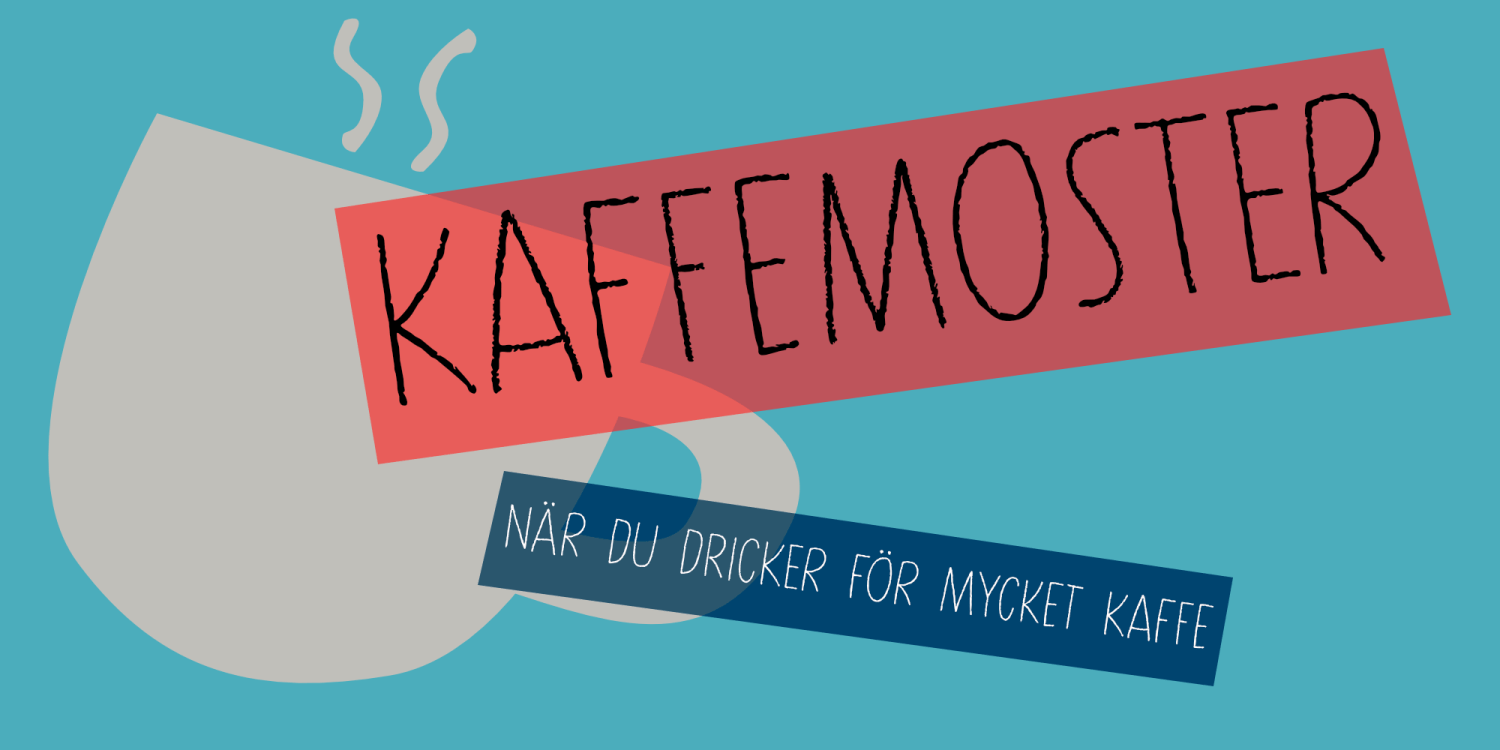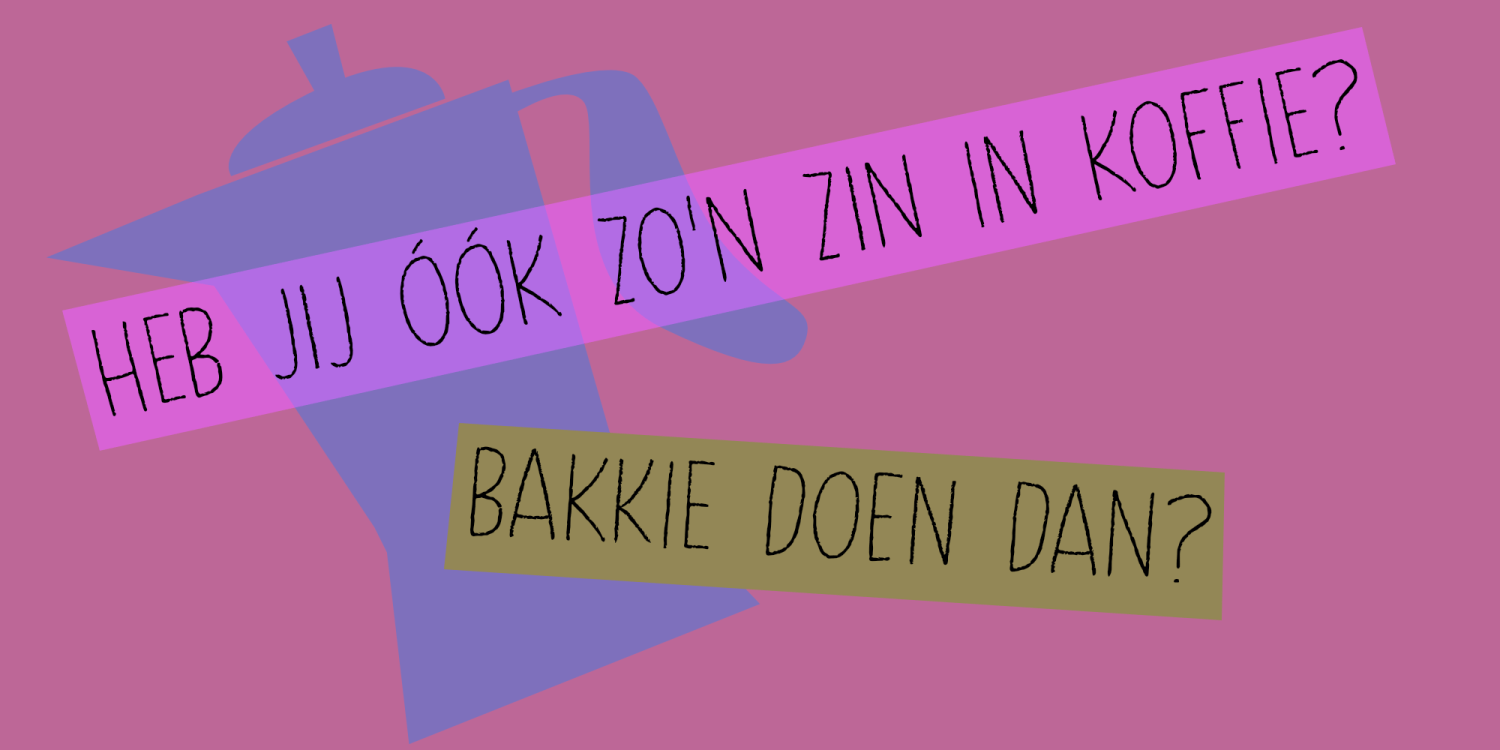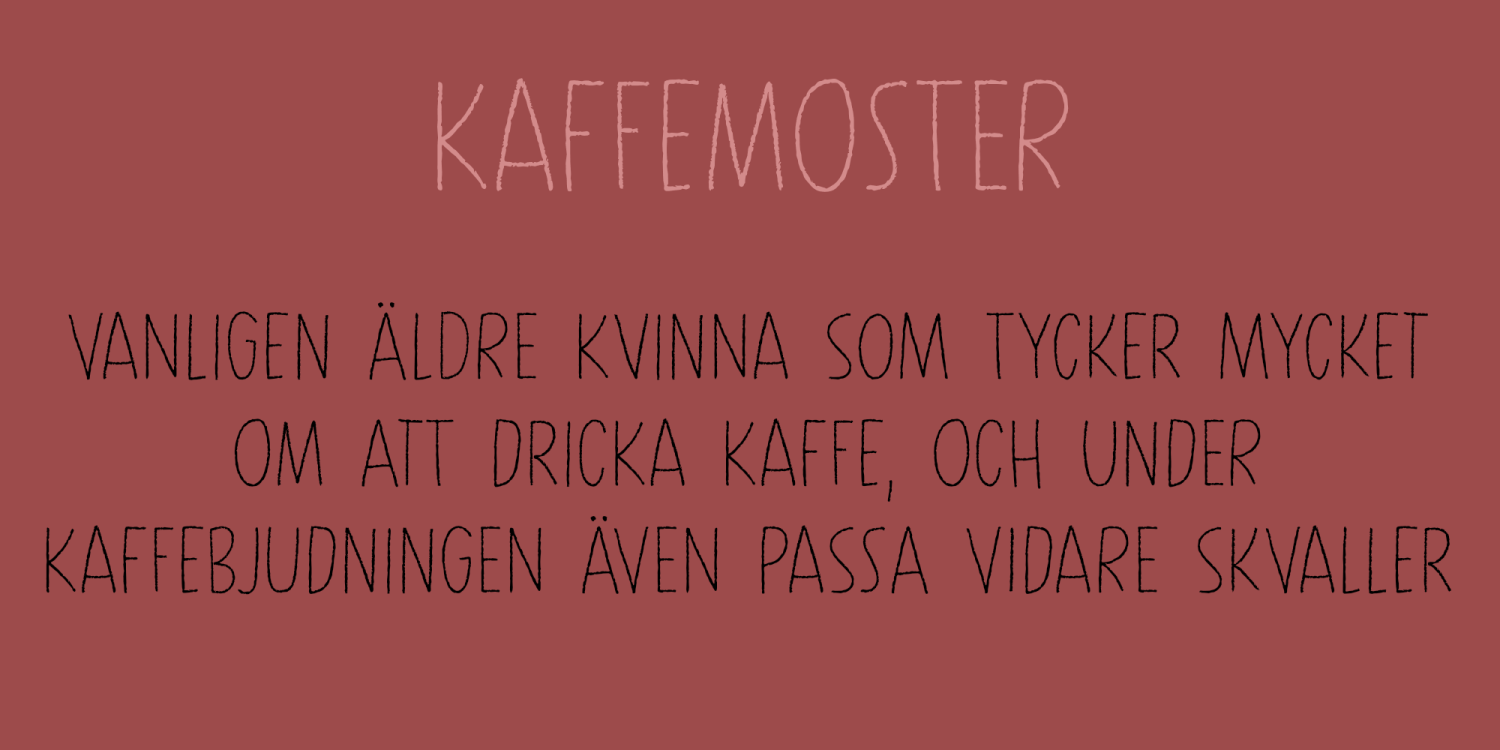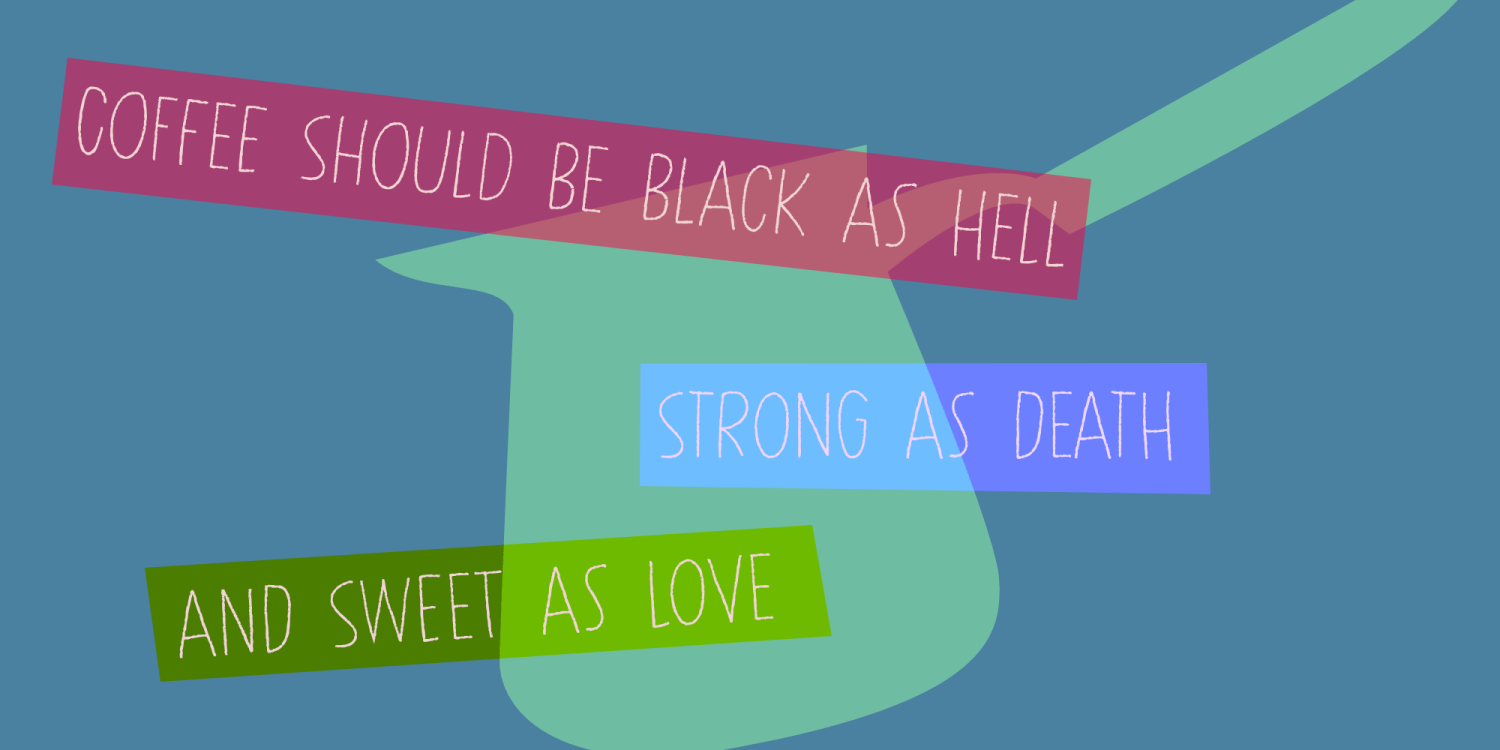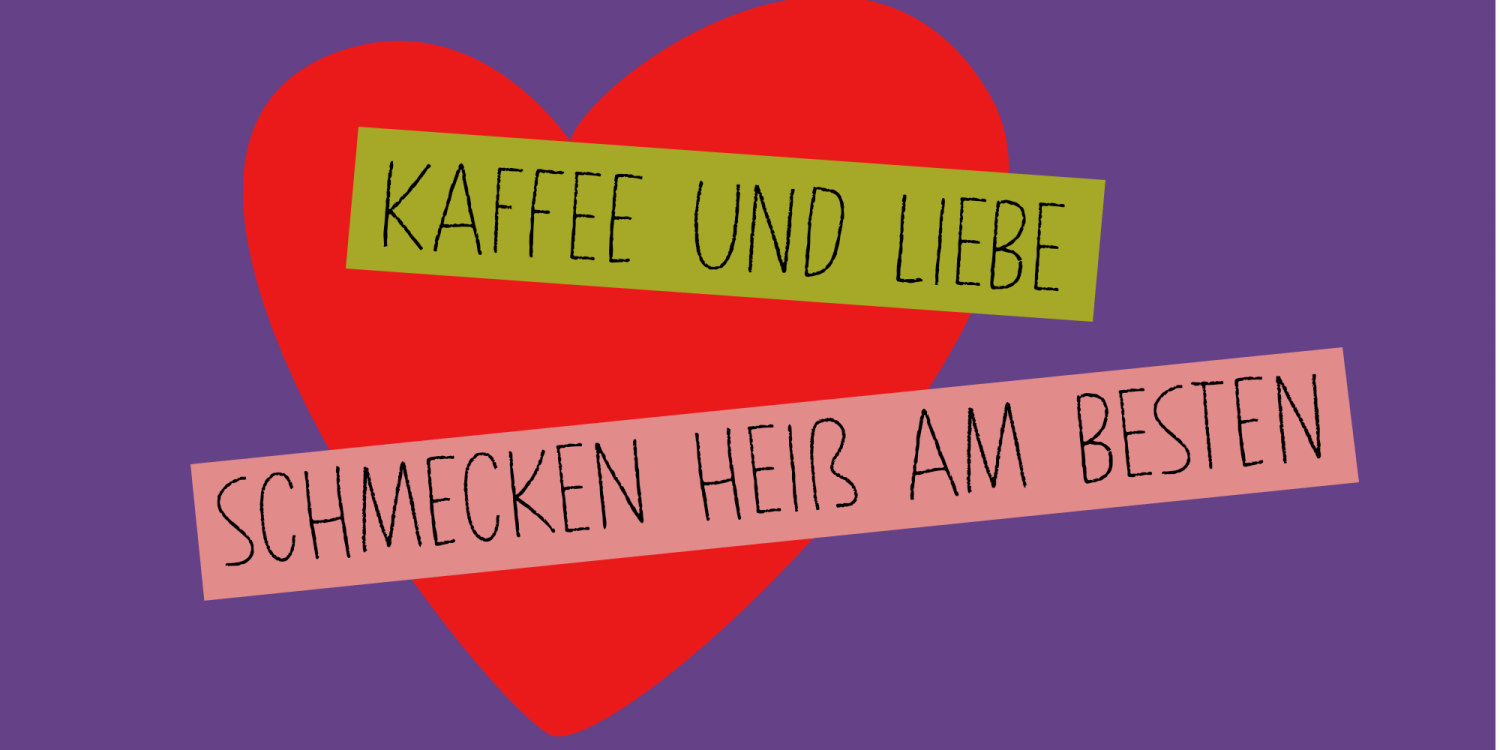
Kaffemoster
Kaffemoster is a Swedish slang word for a lady, usually a bit older, who likes to drink coffee and gossip while she’s drinking it. I have decided to study a bit of Swedish, so I downloaded an app and I am practicing my Swedish vocabulary every night! Det går långsamt, men jag klarar det!
Kaffemoster is a nice, handmade pencil font. It comes with extensive language support (including Swedish) and a nice set of alternates for the lower case letters. Kaffemoster är ett riktigt bra typsnitt!